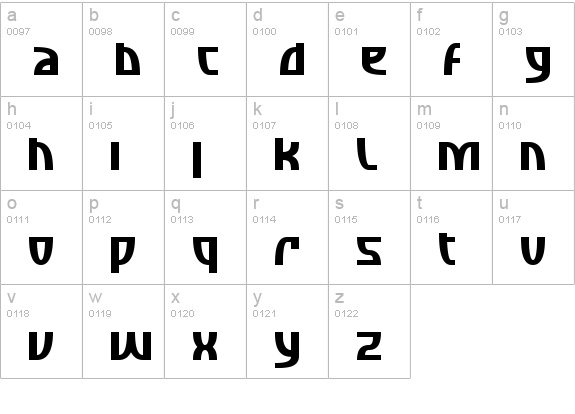
SF Retroesque Font Details
Introducing SF Retroesque font, a captivating typographic masterpiece that effortlessly blends the futuristic essence of science fiction with the nostalgic charm of the past. This font is a true homage to the retro aesthetics that have inspired countless adventures in the realms of imagination. SF Retroesque boasts a unique combination of geometric shapes, bold lines, and sleek curves, resulting in a visually stunning typeface that immediately catches the eye. Its carefully crafted letterforms evoke a sense of wonder and excitement, reminiscent of the golden age of science fiction literature and cinema. With its distinct retro vibe, SF Retroesque font is the perfect choice for projects that require a touch of nostalgia, such as vintage-inspired logos, posters, album covers, and more. Its versatility allows it to seamlessly blend into various design styles, adding a touch of timeless elegance to any project. And the best part? SF Retroesque is absolutely free to download at FontsMarket.com. This means that you can unleash your creativity without any limitations or financial constraints. Whether you are a professional designer or a passionate hobbyist, this font is readily available to enhance your projects and bring your visions to life. So, don't hesitate to embark on a journey through time with SF Retroesque font. Download it today at FontsMarket.com and let your designs transcend the boundaries of the present, while paying homage to the allure of the past.